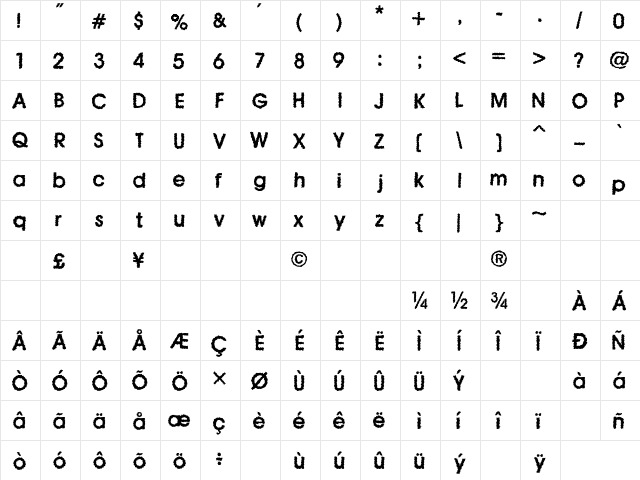
Icetea Regular
Design Context for Icetea Typeface
Icetea offers clean, dependable letterforms without strong stylistic allegiance, making it a practical choice for designers who need flexibility.